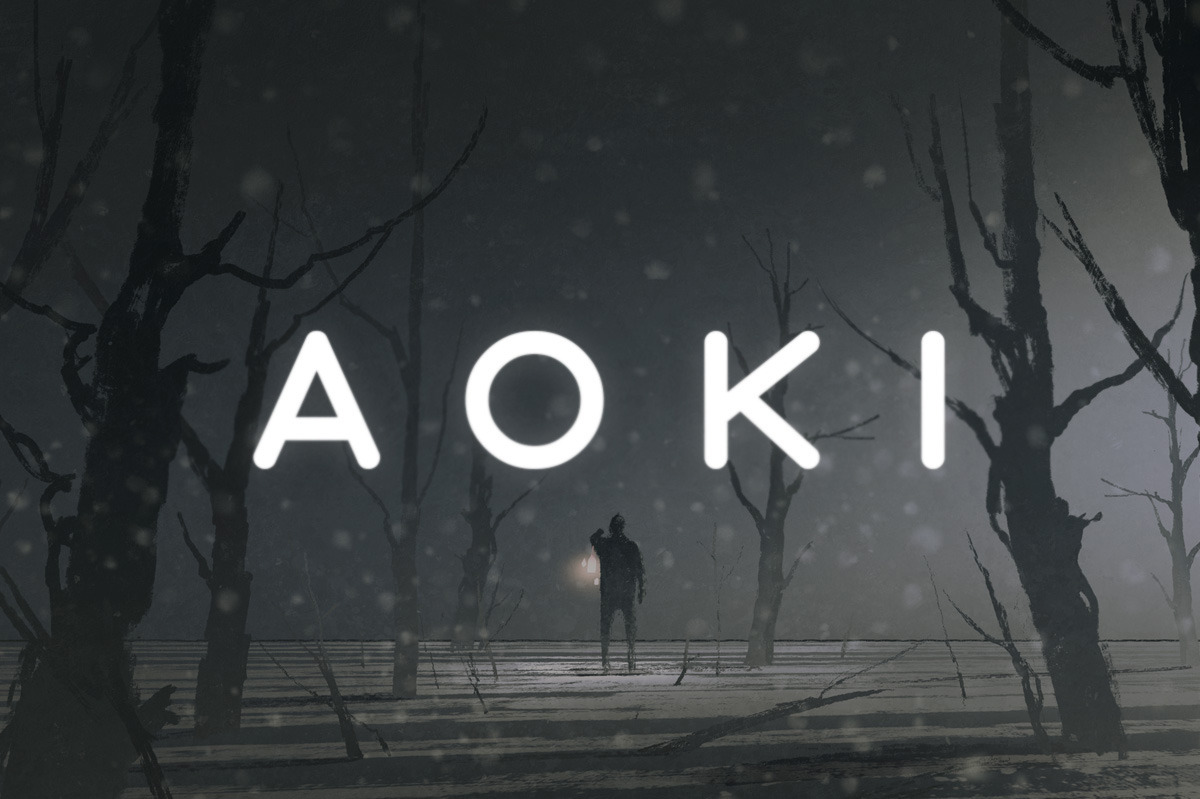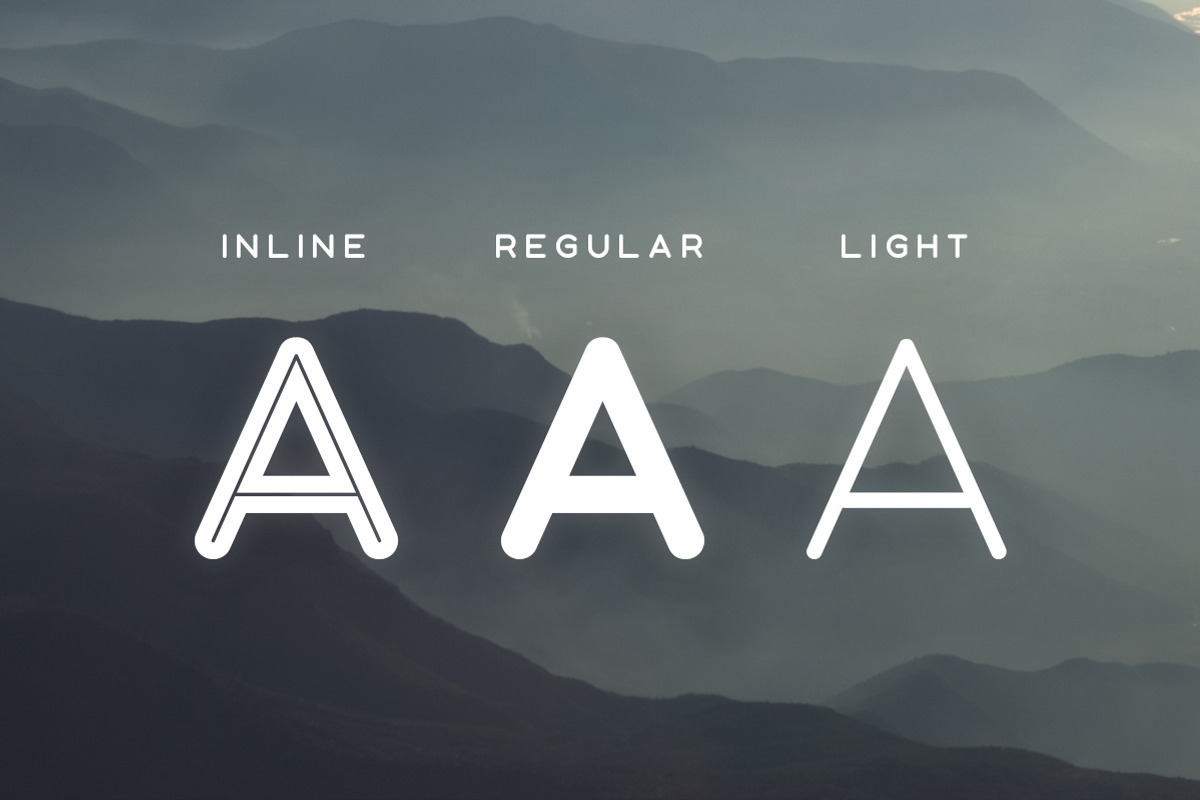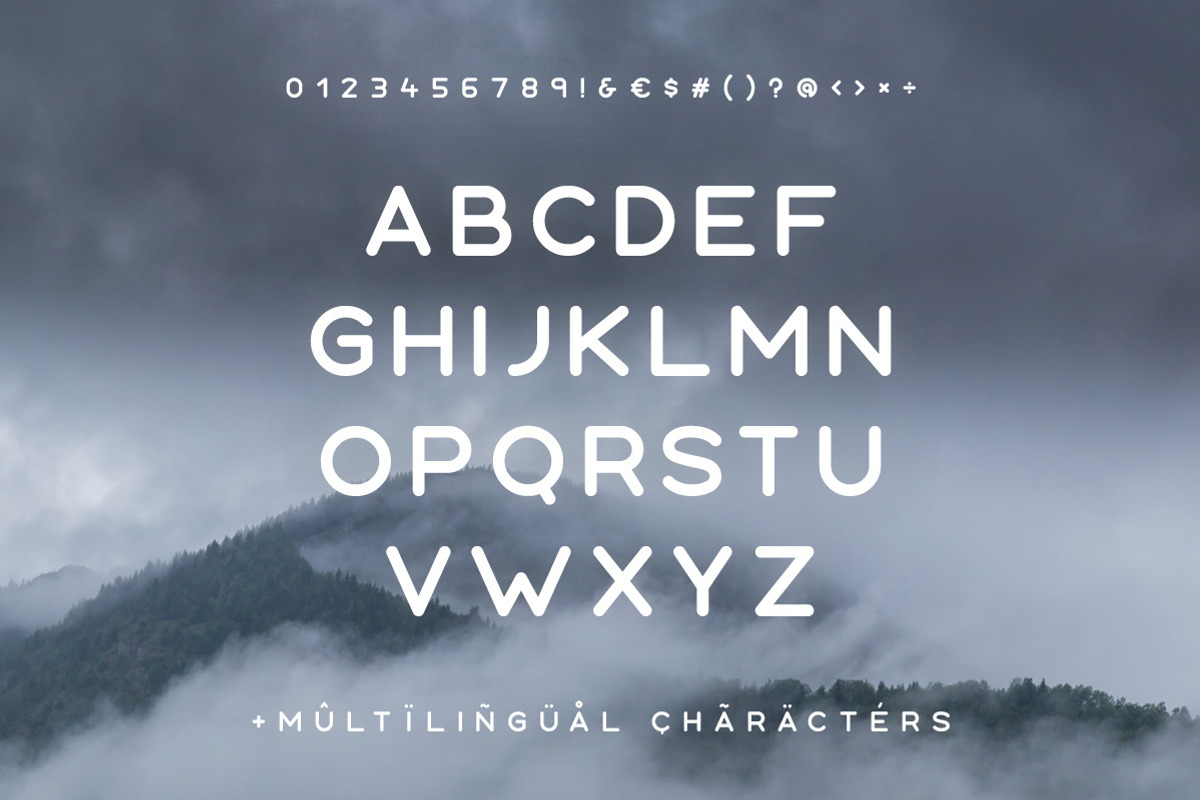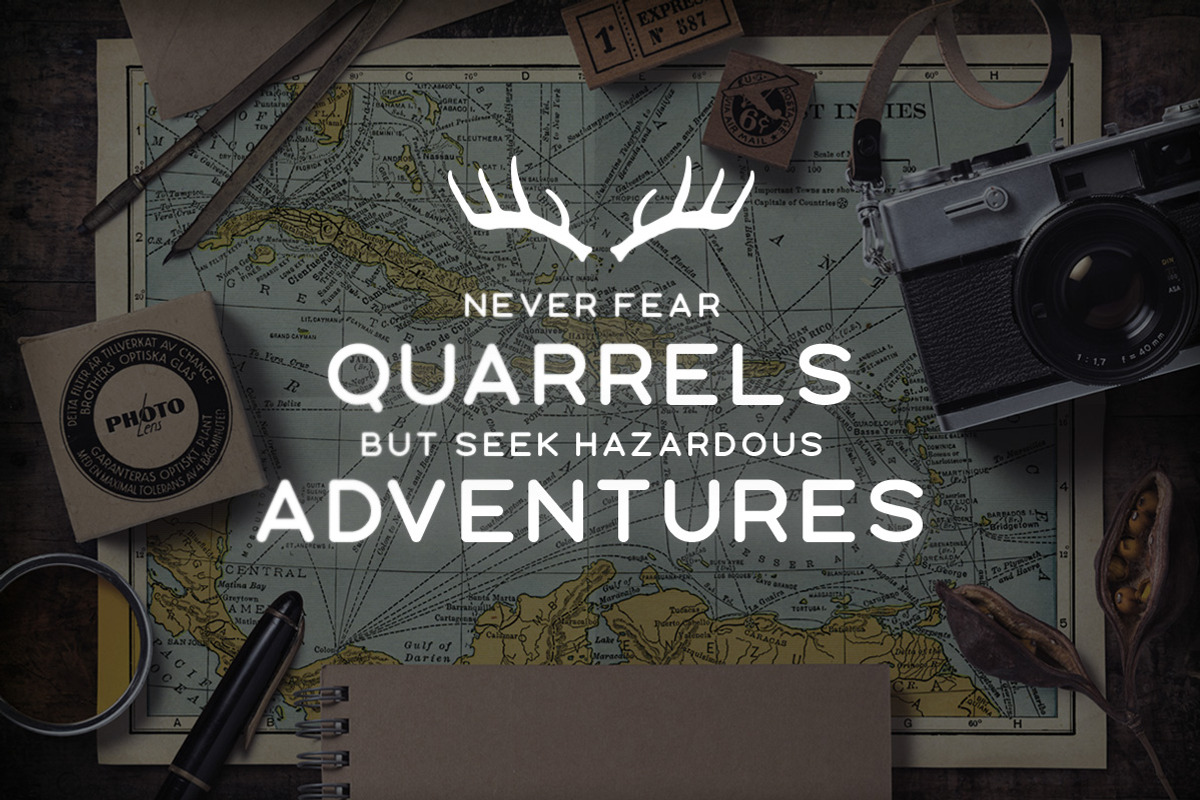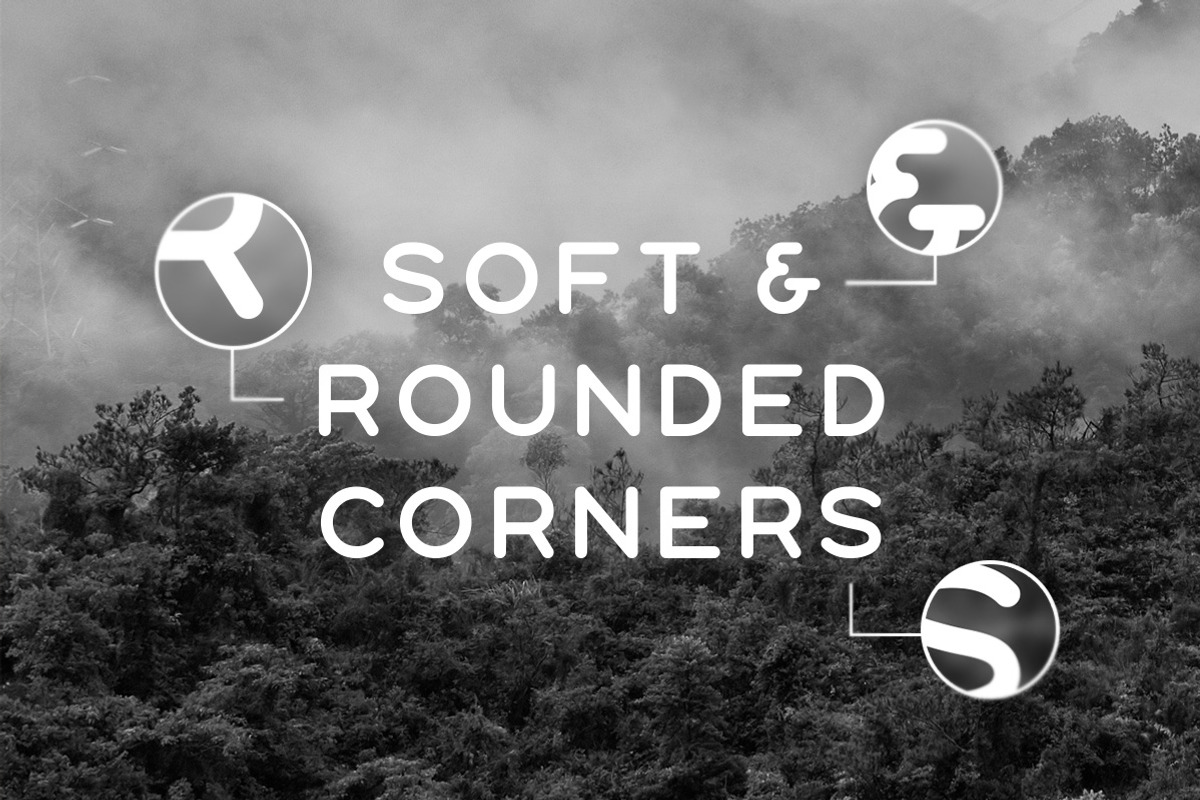
Aoki Typeface
Aoki is a sans serif display font with a rounded aesthetic. It comes in regular, light and inline styles and includes multilingual uppercase characters, numbers and punctuation.